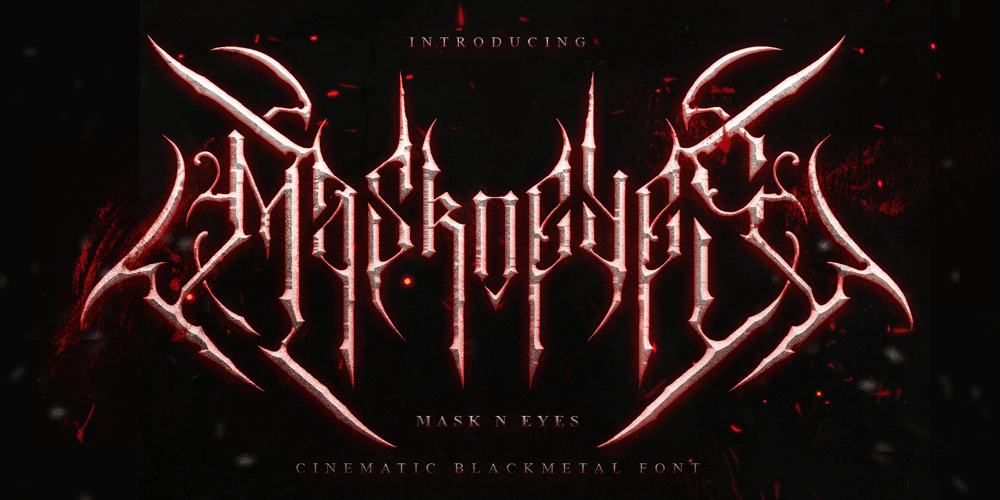
Maskneyes Blackmetal
Maskneyes Blackmetal font
Maskneyes Blackmetal Font Family was designed by Achmad Hanif Ulinuha and published by Madhaline Studio. Maskneyes Blackmetal contains 2 styles and family package options. We RECOMMEND that you purchase both of these fonts to get the look like in the font preview image.Youtube Tutorials : https://www.youtube.com/@madhalinestudioMask n eyes is a carefully crafted font, which features a very heavy black metal feel. Mask n eyes suitable for metal band logos, merchandise, clothing, apparel, or anything that needs a black metal feel.